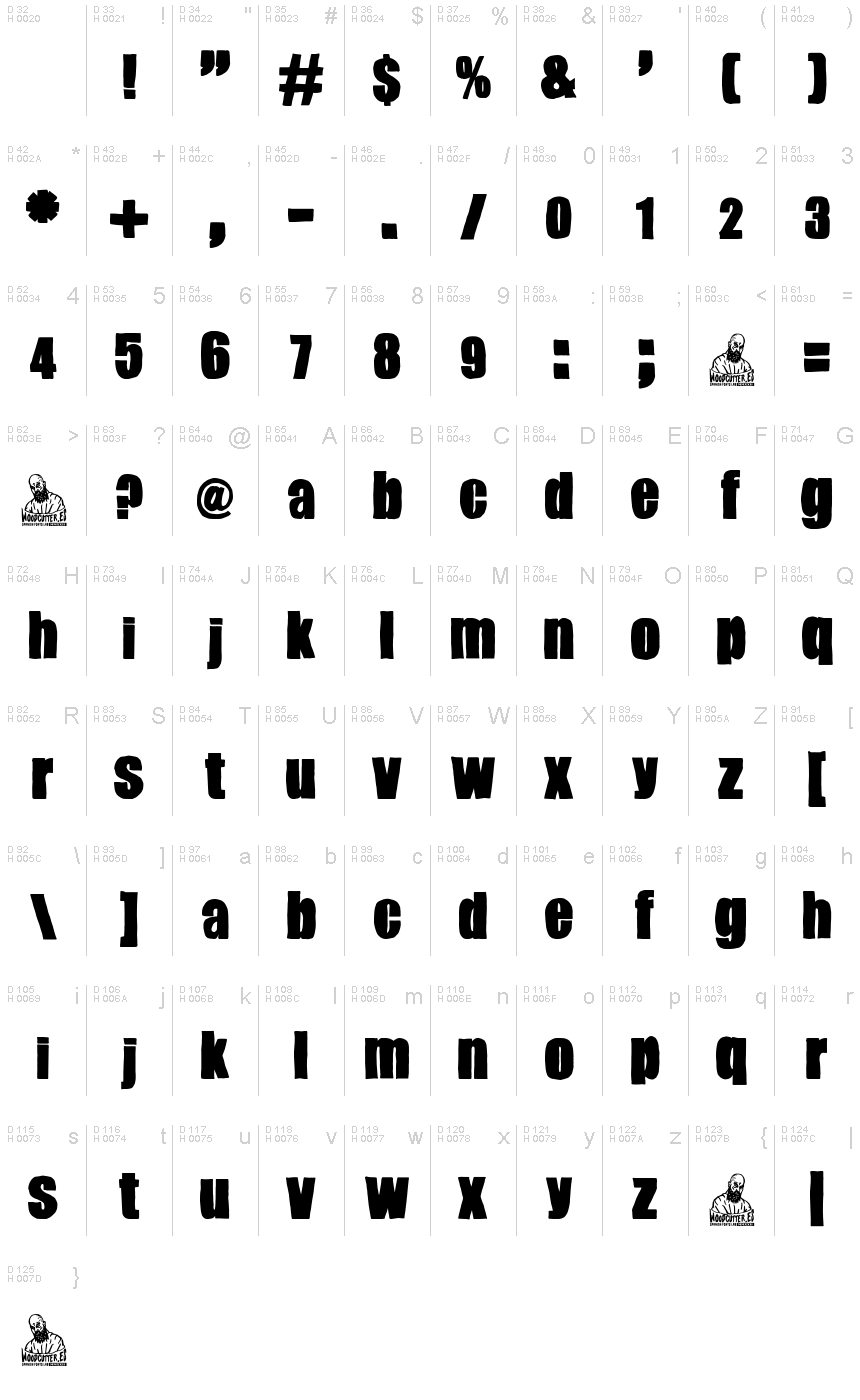
Gender Wars
Crafted in bold, distorted strokes, "Gender Wars" by Woodcutter exudes a striking, unconventional presence. This display font captivates with its raw, edgy aesthetics, evoking a sense of defiance and nonconformity. The uneven, jagged letterforms convey a powerful, unapologetic message, commanding attention and resonating with audiences seeking to make a bold visual statement.
This distinctive typeface lends itself well to various design contexts, from eye-catching headlines and impactful logos to empowering brand identities and rebellious editorial layouts. Its dynamic, attention-grabbing qualities make it an excellent choice for projects that aim to challenge conventions, amplify narratives of social justice, or celebrate nonbinary perspectives.
Gender Wars.